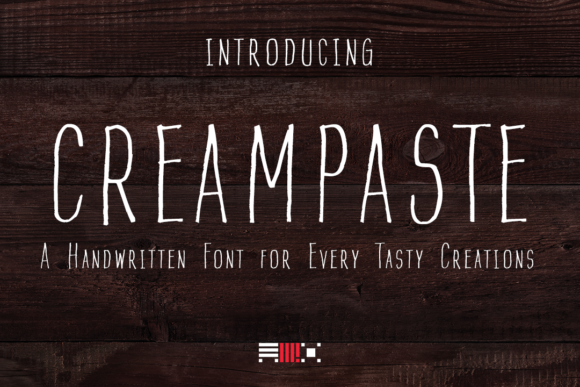
HomeScript FontsCreampaste Font Script Fonts Creampaste Font FacebookXPinterestWhatsApp About Creampaste Font Creampaste is made to be delicious and creamy for your design. DOWNLOAD ON CREATIVE FABRICAThis font is sold and delivered by Creative Fabrica. Font Canyon may earn a commission if you buy through this link. People also explored Adestya Font Lastwinter Font Santiago Font Staycation Font Huckleberry Tackle Font Stockholm Nights Font Katana Font Jack and Sally Font 272 0 TagsCreampaste Font Previous articleDouble Jacket FontNext articleLarispol Font LEAVE A REPLY Cancel reply Comment: Please enter your comment! Name:* Please enter your name here Email:* You have entered an incorrect email address! Please enter your email address here Website: Save my name, email, and website in this browser for the next time I comment. Personal Use Free Waverly Date Personal Use Free Read more about this font Boby Personal Use Free Read more about this font Arnitta Callina Personal Use Free Read more about this font Milda Personal Use Free Read more about this font BLOG Free Fonts Risk: Why Free Fonts Can Be Dangerous for Designers Free Fonts Risk: Why Free Fonts Can Be Dangerous for Designers Using free fonts is a common practice in web and graphic design. However, the... How to Cut Any Font on Cricut: Convert a Font to SVG (Free) Top 7 Google Fonts Alternatives for Faster and Privacy-Friendly Web Design (2025) Free vs Paid Fonts: Why Investing in Premium Fonts Is Worth It